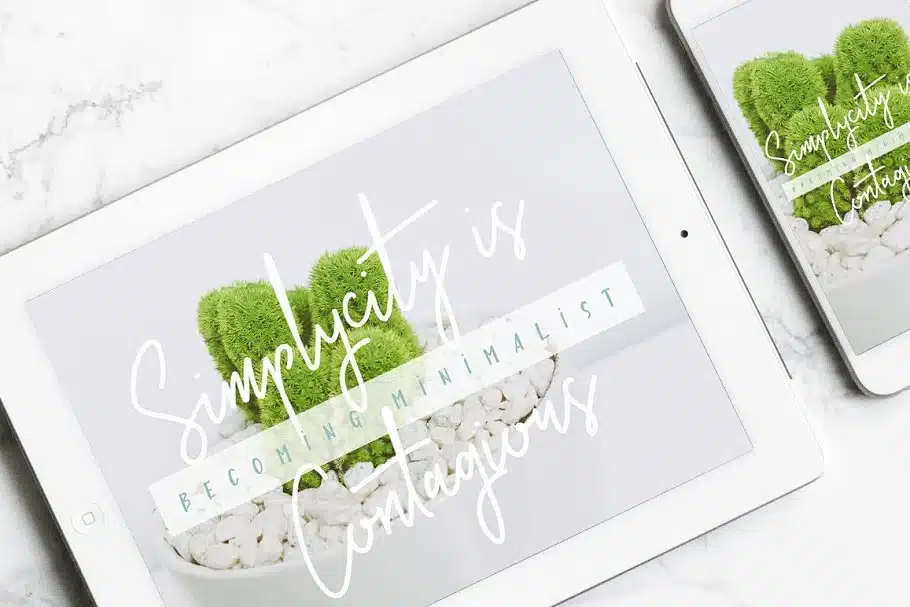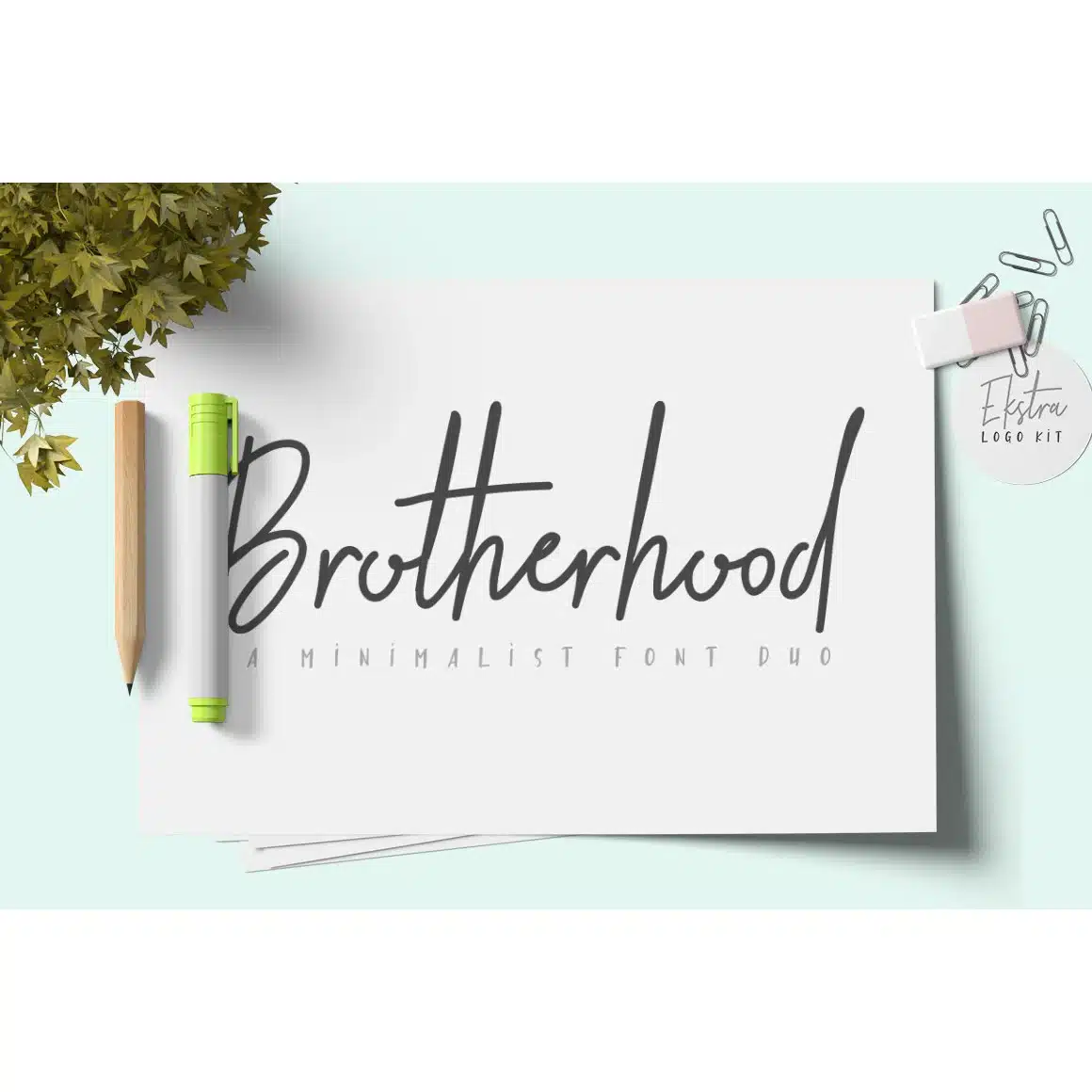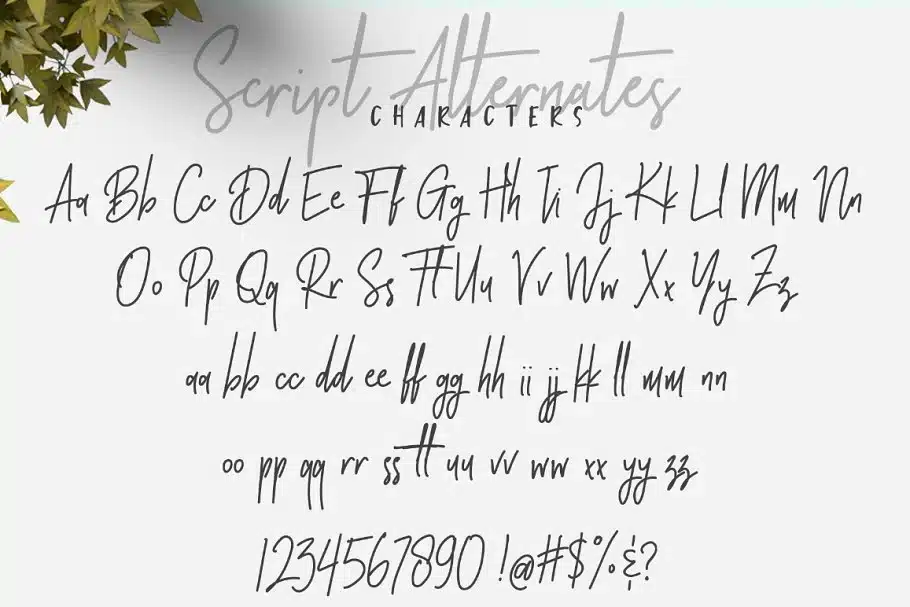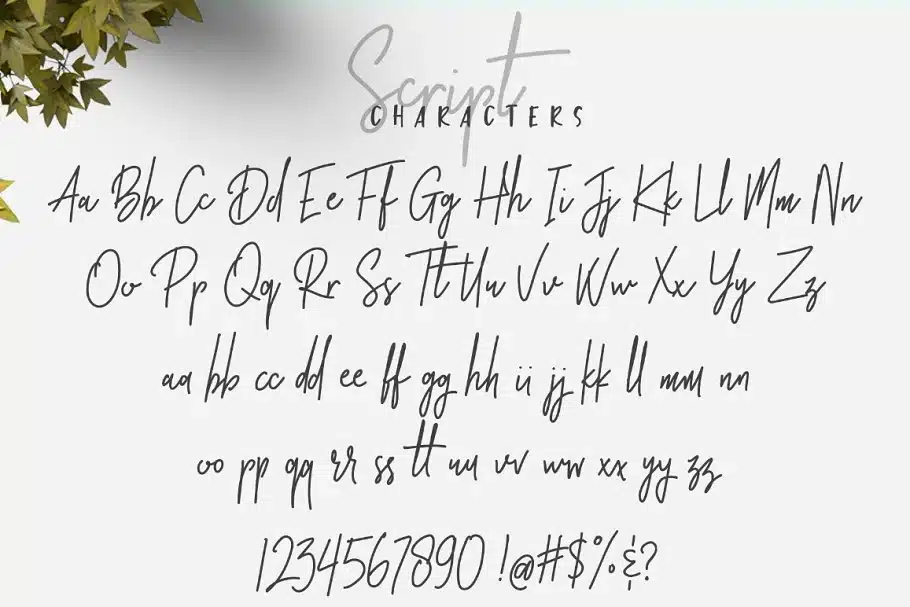
Brotherhood Font Duo + Ekstra
DETAILSBrotherhood is an elegant font duo that combine beautiful rustic stylish script and caps into one gorgeous package. Brotherhood is gergeous typeface for logotype, website header, fashion design, wedding card design and any more.
- Brotherhood (OTF & TTF) : Full set of lower & uppercase letters, numerals and a large range of punctuation.
- Brotherhood Alternates (OTF & TTF) : This is a second version of Brotherhood, with a completely new set of both lower and uppercase characters. If you wanted to avoid letters looking the same each time to recreate a custom-made style, or try a different word shape, simply switch to this font for an additional layout option.
- Brotherhood Caps (OTF & TTF) : This is a sans versionlof Brotherhood, you can use this option like if you want to create a combination of headers and subheaders.